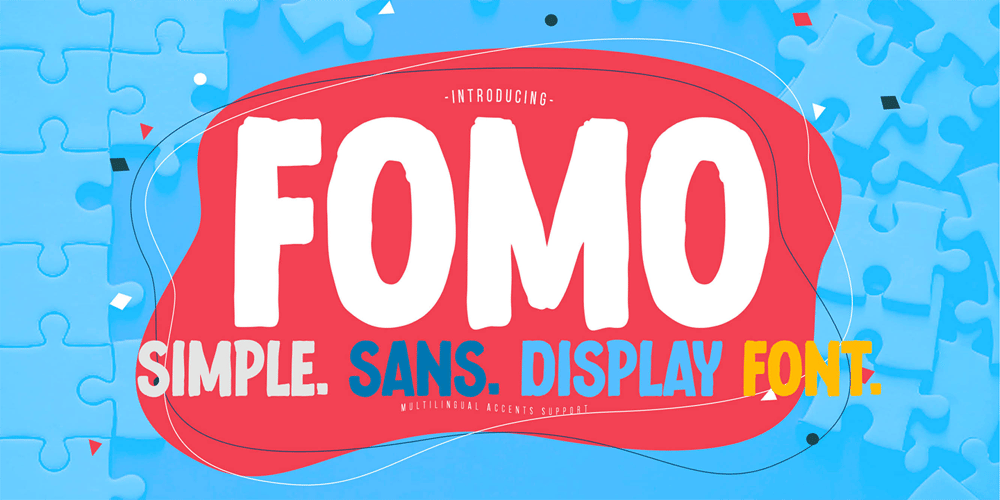
Fomo
Fomo font
Fomo Font Family was designed by Abdul Malik Wisnu, Anang Fibriyanto and published by Gassstype. Fomo contains 1 styles and family package options. Hello Everyone, introduce our new product Font FOMO This Is Simple Sans Display Font .This is a Textured Natural Style and classy style with a clear style and dramatic movement. This font FOMO is great for your next creative project such as logos, printed quotes, Design this font is great for your creative projects such as watermark on photography.